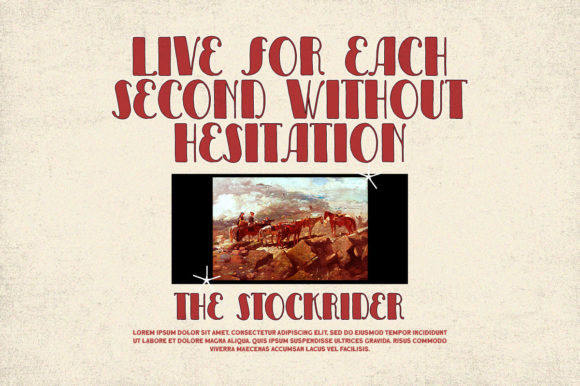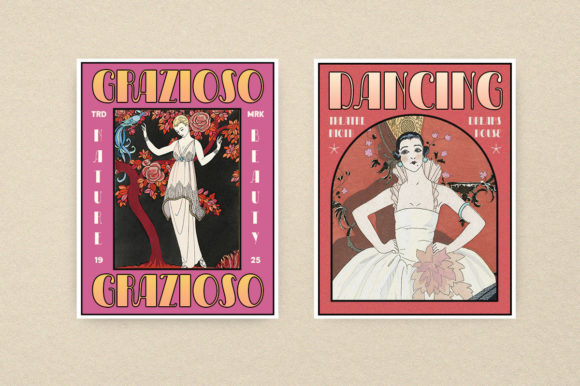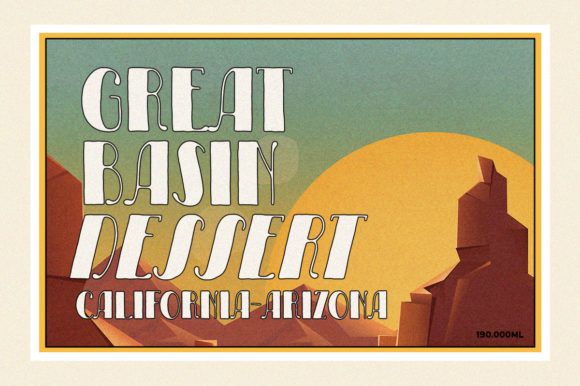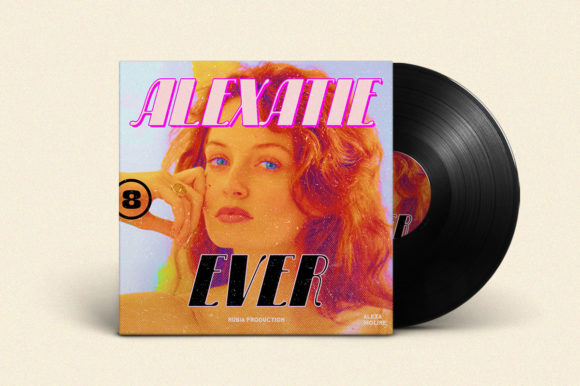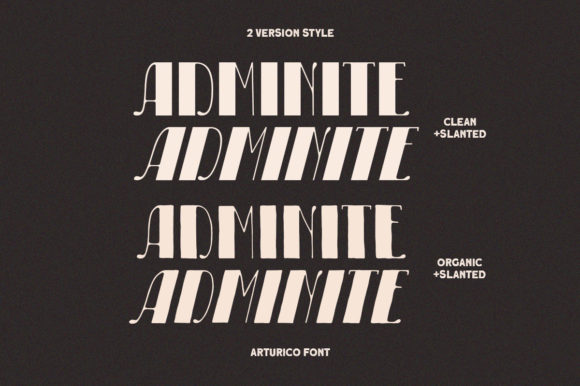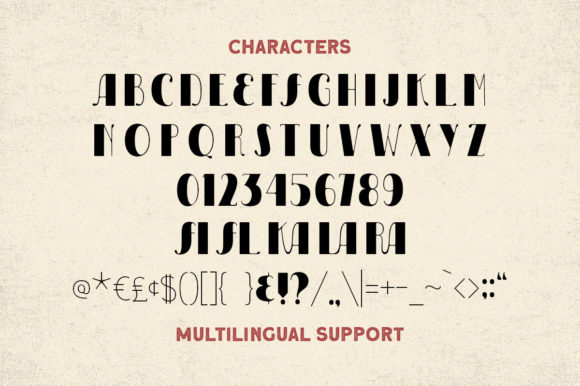
The Perfect Blend of Retro and Sophistication: Introducing Arturico Font
Do you remember that moment when you stumbled upon an old vinyl record or a vintage magazine, and the nostalgic feel instantly sparked a wave of creativity within you? For designers, this feeling is a constant companion, always searching for the perfect tool to bring their ideas to life. And that’s where the Arturico Font comes in – a high contrast display font that perfectly captures the essence of the 60s and 70s.
This elegant font is designed to add a touch of sophistication and class to any design project. From formal invitations to magazine covers, labels, and packaging, the Arturico Font is the perfect choice for designers looking to create a lasting impression. Its versatility makes it a valuable asset for any design arsenal, and its unique style is sure to elevate any project to new heights.
Arturico Font Key Features
- Font Family: Arturico is a serif font family, designed to evoke a sense of elegance and sophistication.
- Unique Characteristics: Arturico features a distinctive x-height and a unique letterform design, making it stand out in various typography contexts.
Arturico Font Review
Initially, I was drawn to the Arturico font due to its unique blend of modern and vintage elements ✨. The font’s clean lines, paired with its distressed texture, make it an excellent choice for designs that require a touch of elegance and sophistication. The font’s versatility is also a major plus, as it can be used for a wide range of projects, from posters and flyers to digital interfaces and branding materials.
However, I did encounter a few limitations with the Arturico font ⚠️. The font’s distressed texture can sometimes make it difficult to read, particularly at smaller font sizes. Additionally, the font’s limited character set can be a hindrance for designers who need to work with non-Latin scripts or special characters.
- Unique blend of modern and vintage elements
- Clean lines and distressed texture
- Excellent for posters, flyers, digital interfaces, and branding materials
- Some difficulties with readability at smaller font sizes
- Limited character set
Overall, I would recommend the Arturico font for designers who are looking for a distinctive and elegant font to add some sophistication to their designs. However, it’s essential to be aware of the font’s limitations and take necessary precautions to ensure readability and usability.
For optimal results, use Arturico Font in conjunction with other elegant and sophisticated design elements, such as cursive scripts and floral patterns. Experiment with different font sizes and colors to create a unique and eye-catching design.
Arturico Font is commonly used for:
- Business cards and branding materials
- Typography-based art and design
- Document design and layout